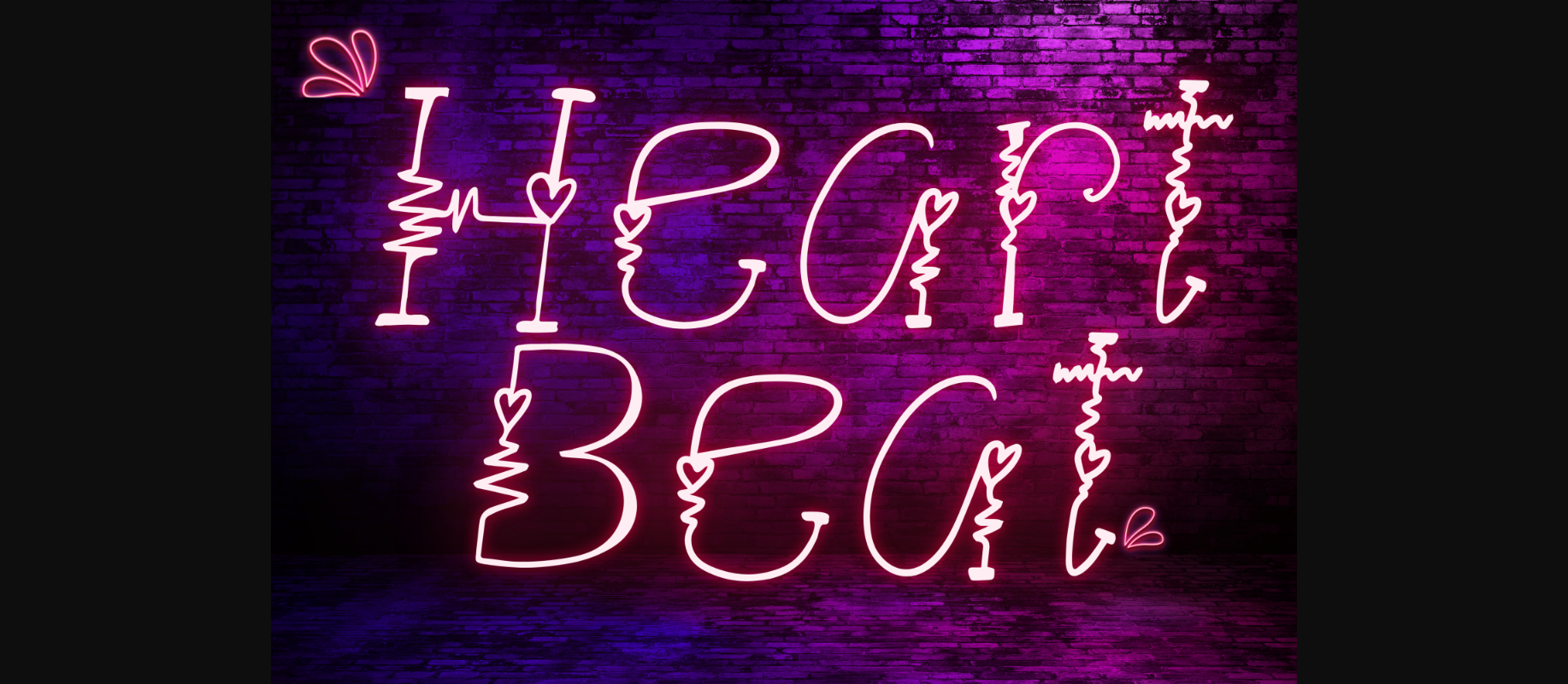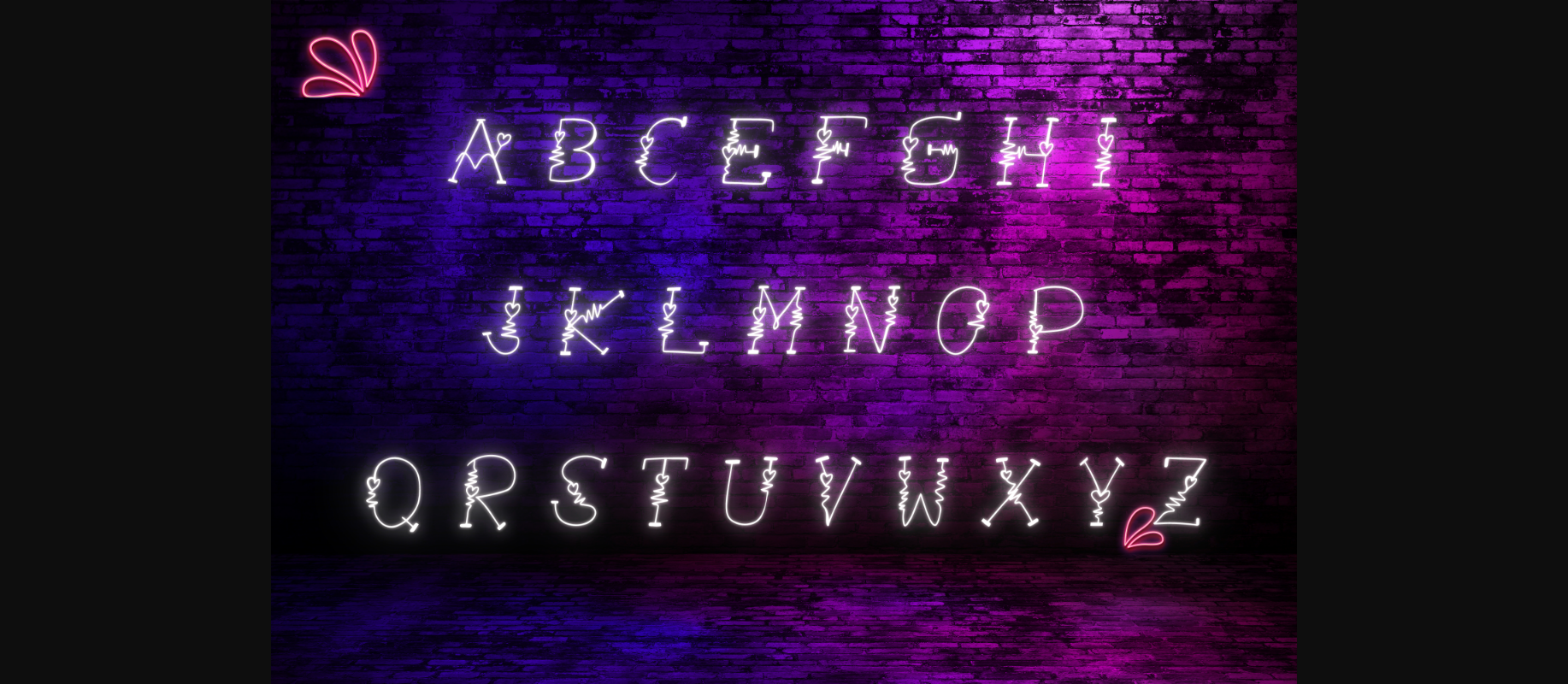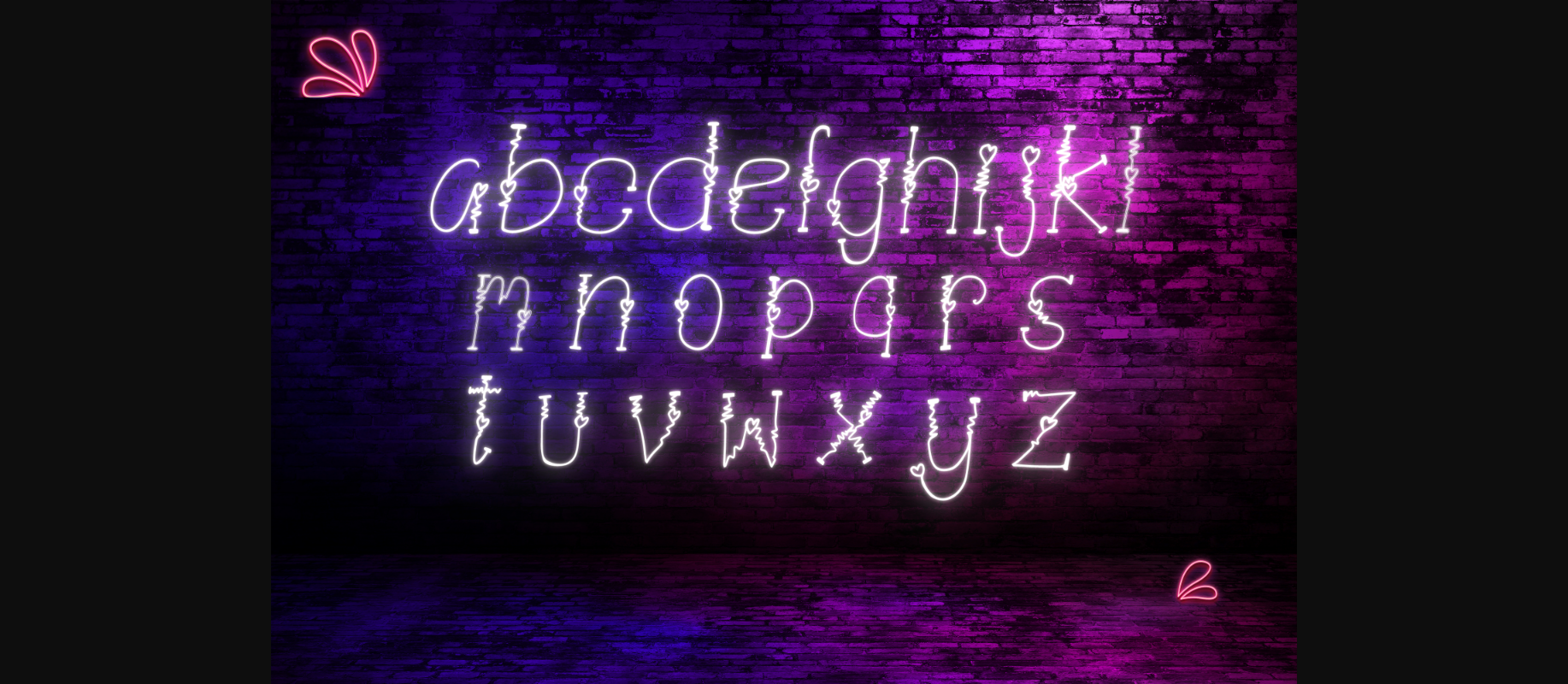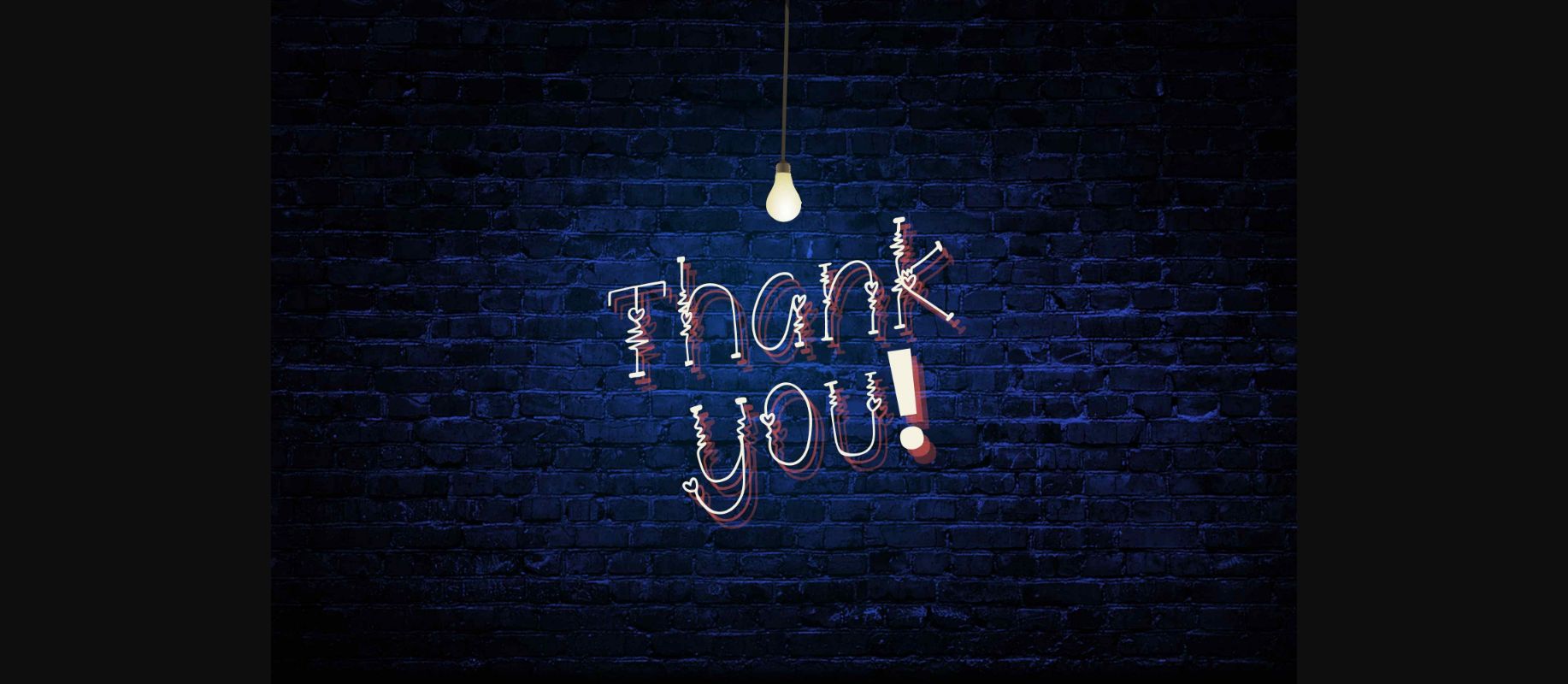
HomeDecorative FontsHeartbeat Font Decorative Fonts Heartbeat Font FacebookXPinterestWhatsApp 1 of 6 ... Heartbeat Font Poster 2... Heartbeat Font Poster 3... Heartbeat Font Poster 4... Heartbeat Font Poster 5... Heartbeat Font Poster 6... About Heartbeat Font Heartbeat is a cute and lovely decorative font. It embodies playfulness and authenticity and is the perfect choice for decorations for weddings, parties, or any children’s activity projects. DOWNLOAD NOW People also explored Baby Sharkz Font Typograph Font Hollow Point Font Blue Goblet Florals Doggy Font Baygo Font Really Dizzy Font Calvine Monika Font Calista Font 306 0 TagsHeartbeat Font Previous articleWonder Valentine Monogram FontNext articleAmelitha Valentine Monogram Font LEAVE A REPLY Cancel reply Comment: Please enter your comment! Name:* Please enter your name here Email:* You have entered an incorrect email address! Please enter your email address here Website: Save my name, email, and website in this browser for the next time I comment. Personal Use Free Hello December Personal Use Free Read more about this font Morning Miow Personal Use Free Read more about this font Amrina Personal Use Free Read more about this font Loving You Personal Use Free Read more about this font BLOG Free vs Paid Fonts: Why Investing in Premium Fonts Is Worth It Free vs Paid Fonts: Why Premium Fonts Are Worth It in 2025 The debate of free vs paid fonts continues in the design world. While... The 10 Best Handwriting Fonts to Add Personality to Your Designs Best Fonts for YouTube Videos: Make Your Thumbnails Stand Out Elegant Wedding Invitation Fonts – Handwritten & Script Fonts